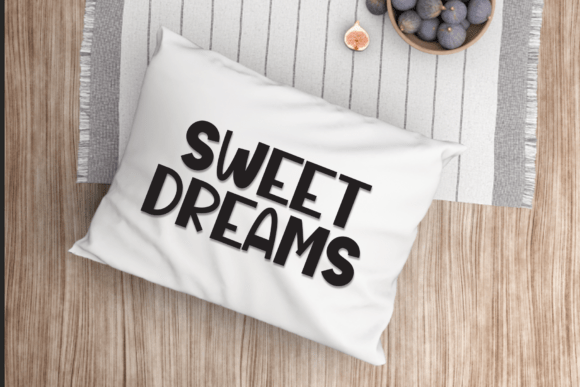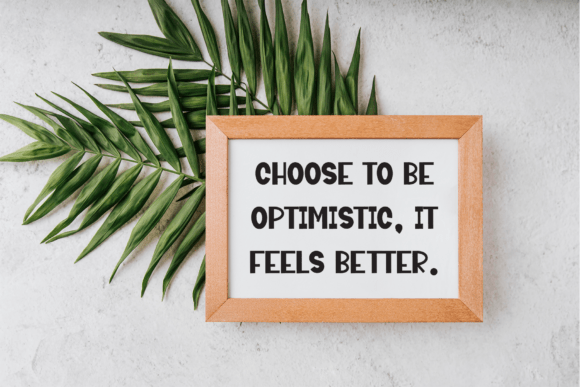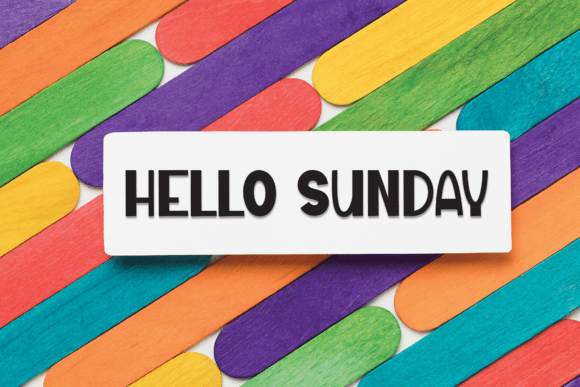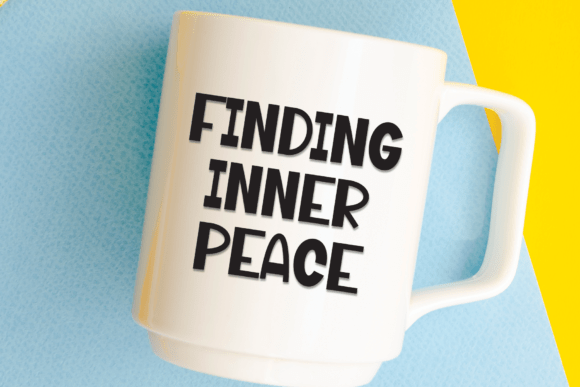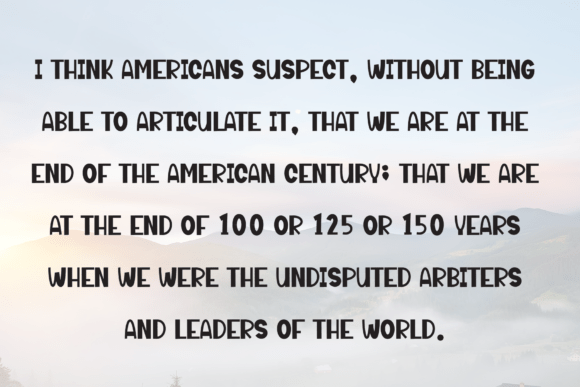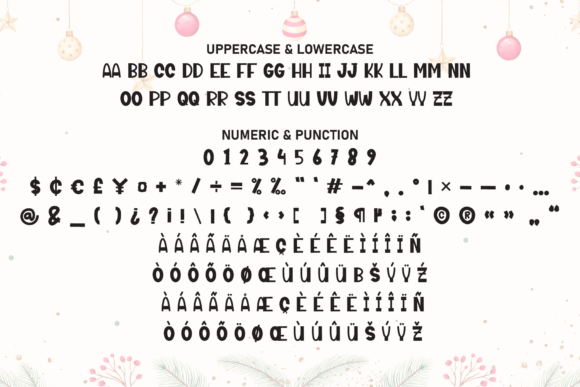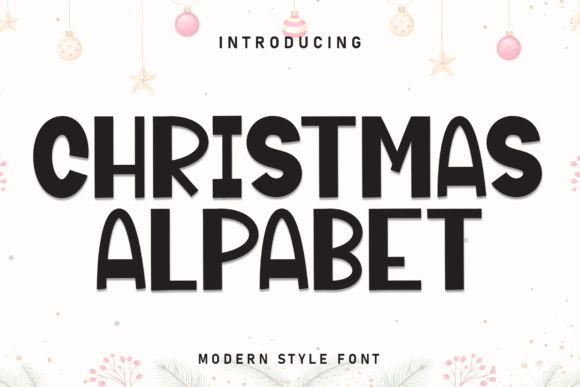
Introducing Christmas Alphabet Font: A Charming Handwritten Display Font
Are you looking for a font that can add a touch of sweetness and friendliness to your designs? Look no further than the Christmas Alphabet Font, a delightful handwritten display font that is perfect for crafting wedding invitations, cards, and other designs that require a sprinkle of cheer. In this article, we’ll take a closer look at this charming font and explore its features, benefits, and uses.
A Perfect Blend of Sweetness and Friendliness
The Christmas Alphabet Font is a unique and charming font that is designed to add a touch of whimsy and fun to your designs. Its playful charm is irresistible, making it perfect for designers and crafters who want to create artistic creations that stand out from the crowd. Whether you’re designing wedding invitations, greeting cards, or other paper crafts, this font is sure to delight.
Features of Christmas Alphabet Font
So, what makes the Christmas Alphabet Font so special? Here are some of its key features:
• Handwritten display font: The Christmas Alphabet Font is a handwritten display font that is designed to add a personal touch to your designs.
• Playful and charming: This font has a playful and charming personality that is perfect for designs that require a touch of whimsy and fun.
• Sweet and friendly: The font’s sweet and friendly tone makes it perfect for wedding invitations, cards, and other designs that require a personal touch.
• Cute and amusing: The Christmas Alphabet Font is oozing with cuteness and amusement, making it perfect for designs that require a sprinkle of cheer.
Benefits of Using Christmas Alphabet Font
So, why should you use the Christmas Alphabet Font in your designs? Here are some of its benefits:
• Adds a personal touch: The Christmas Alphabet Font adds a personal touch to your designs, making them more special and unique.
• Perfect for wedding invitations and cards: This font is perfect for wedding invitations, cards, and other paper crafts that require a touch of elegance and sophistication.
• Versatile: This font is versatile and can be used for a variety of designs, from wedding invitations to greeting cards and paper crafts.
Uses of Christmas Alphabet Font
So, what can you use the Christmas Alphabet Font for? Here are some ideas:
• Wedding invitations: The Christmas Alphabet Font is perfect for wedding invitations, adding a touch of elegance and sophistication to your designs.
• Greeting cards: This font is perfect for greeting cards, adding a personal touch to your designs.
• Paper crafts: The Christmas Alphabet Font is perfect for paper crafts, such as scrapbooking and card making.
• Signs and posters: This font can also be used for signs and posters, adding a touch of whimsy and fun to your designs.
Font Name Christmas Alpabet Font
In conclusion, the Christmas Alphabet Font is a charming and delightful handwritten display font that is perfect for designers and crafters who want to add a touch of sweetness and friendliness to their designs. Its playful charm and irresistible touch of fun make it perfect for wedding invitations, cards, and other paper crafts. With its ease of use, versatility, and range of benefits, the Christmas Alphabet Font is a must-have font for any designer or crafter.